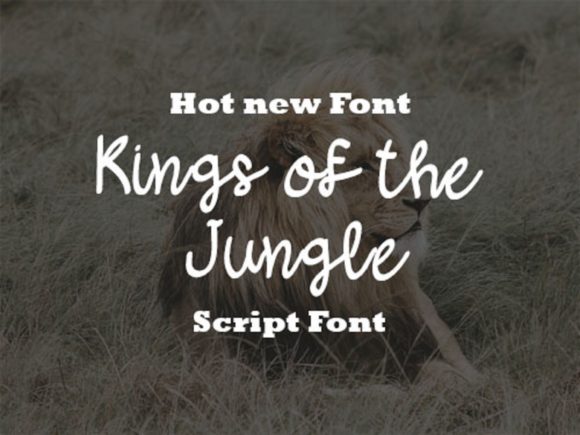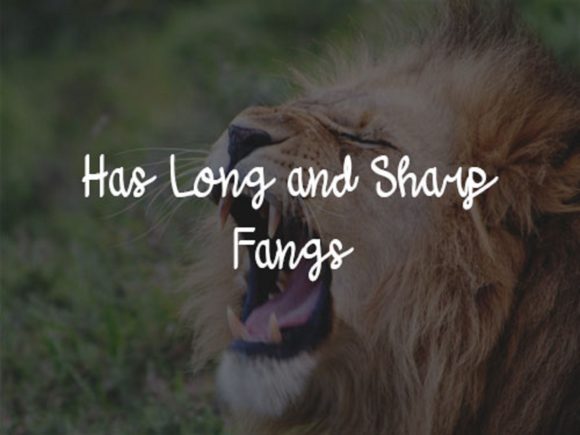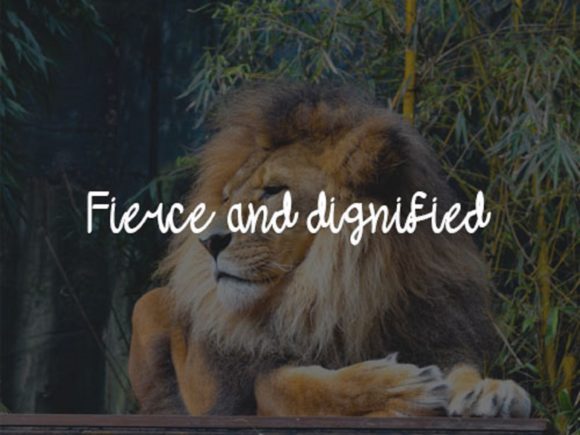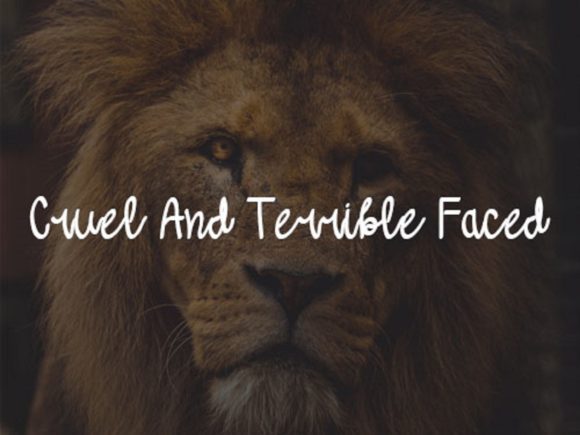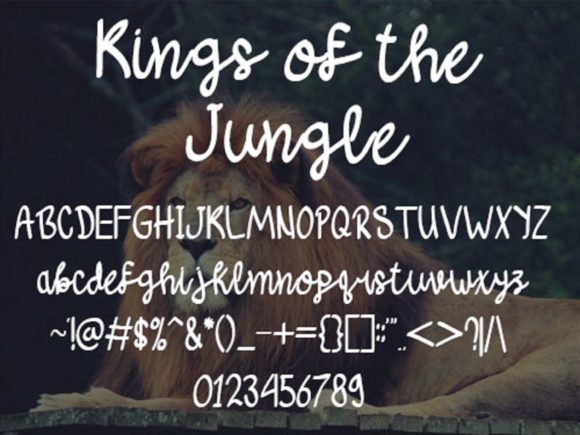
Kings of the Jungle Font
Kings of the Jungle is a sweet and friendly handwritten font. Its natural and unique style makes it incredibly fitting to a large pool of designs. The only limit is your imagination!